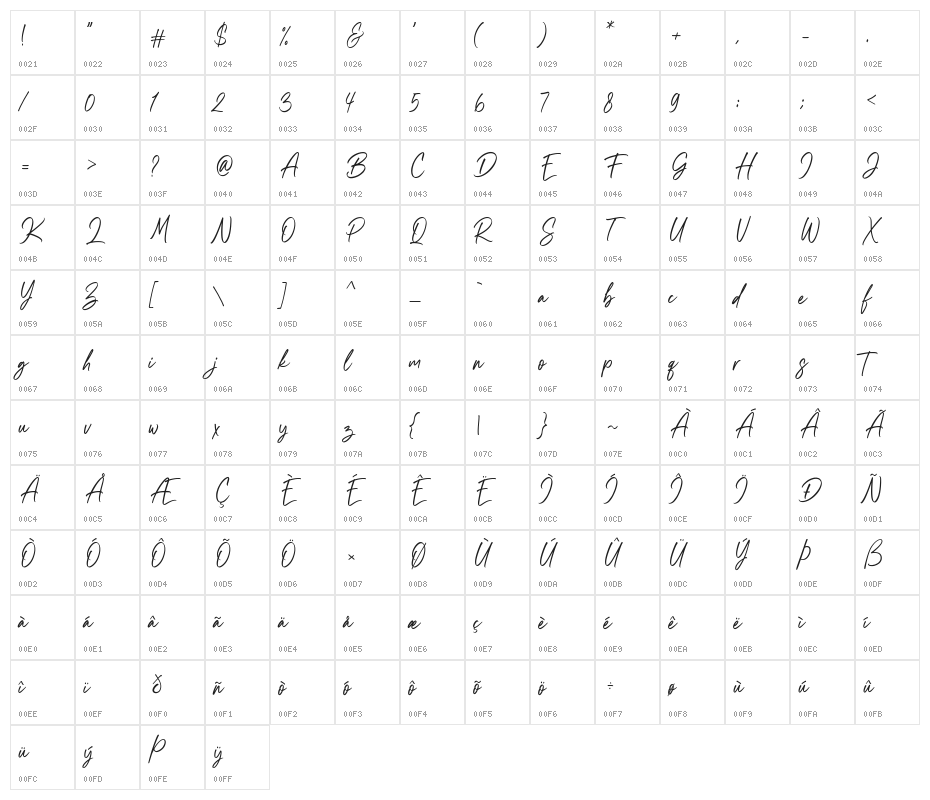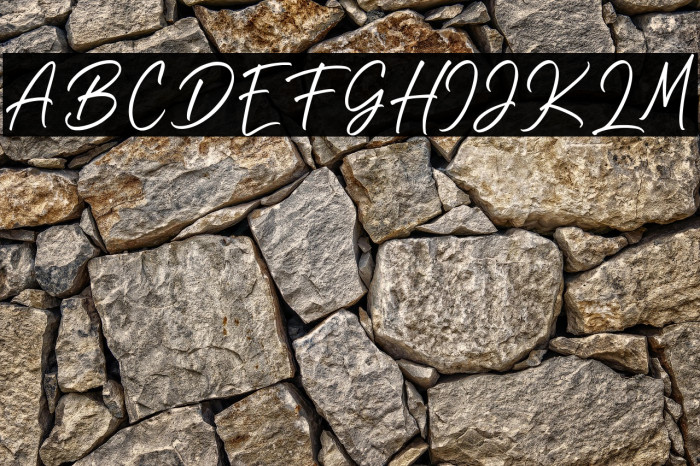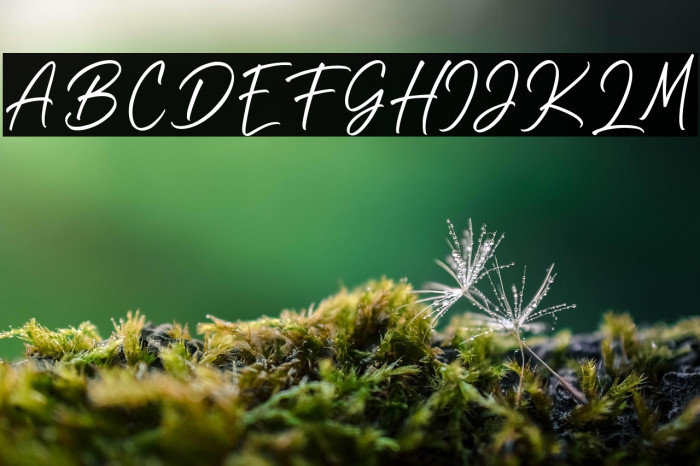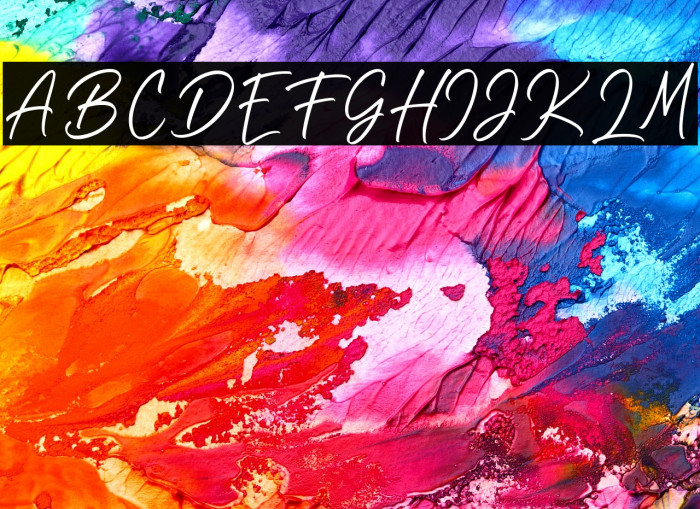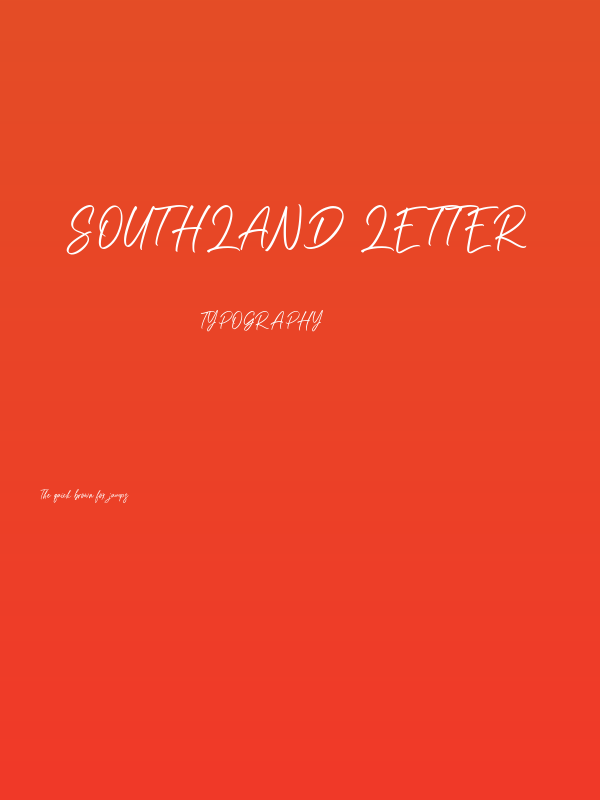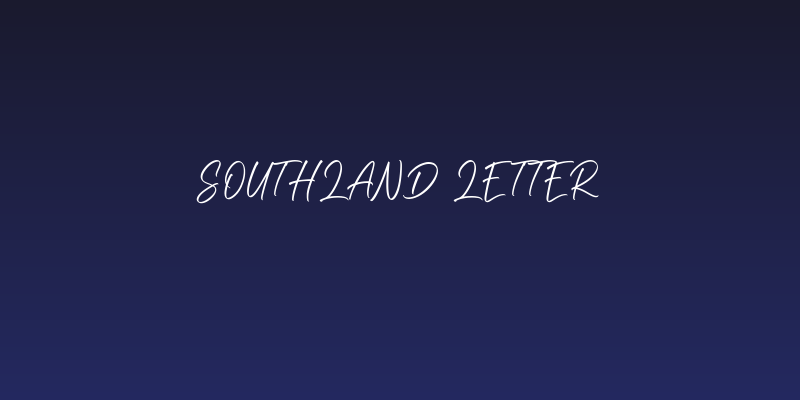
Southland Letter Font
Southland Letter Description
This font features a flowing, cursive style that mimics natural handwriting with an elegant flair. The letters are connected, creating a seamless and fluid appearance. The uppercase letters are slightly larger and more ornate, while the lowercase letters maintain a consistent and smooth baseline. The numerals and special characters are designed to complement the script style, maintaining the same fluidity and elegance. The overall look is sophisticated and stylish, making it ideal for projects that require a personal touch.
| Overall Style | Elegant, Handwritten |
| Proposed Projects | Ideal for wedding invitations, greeting cards, personal branding, and elegant logo designs. |